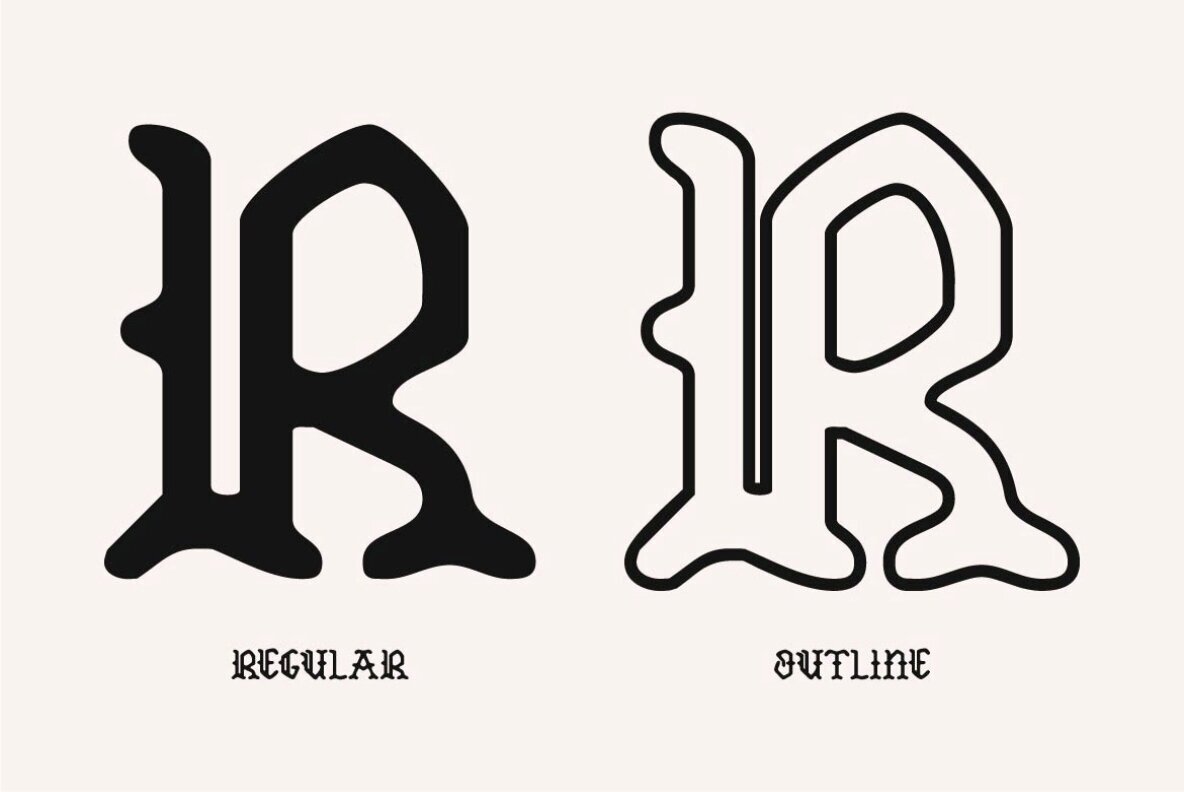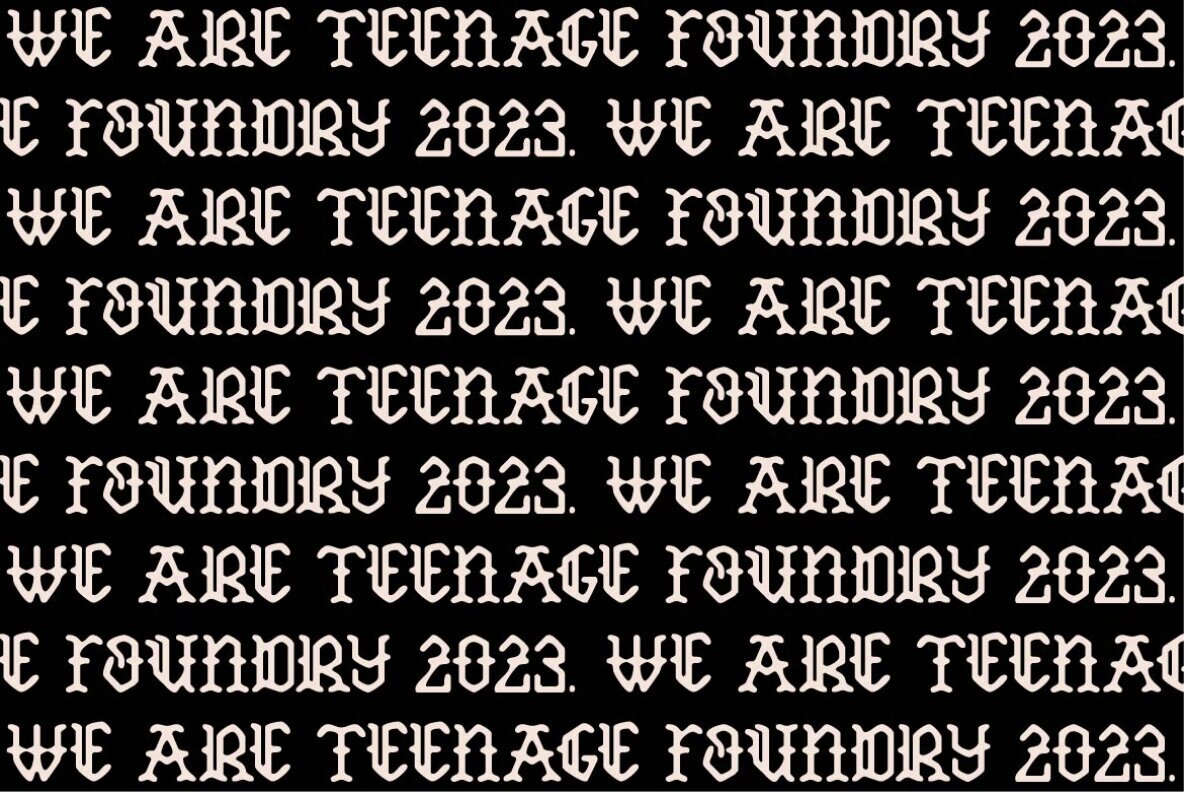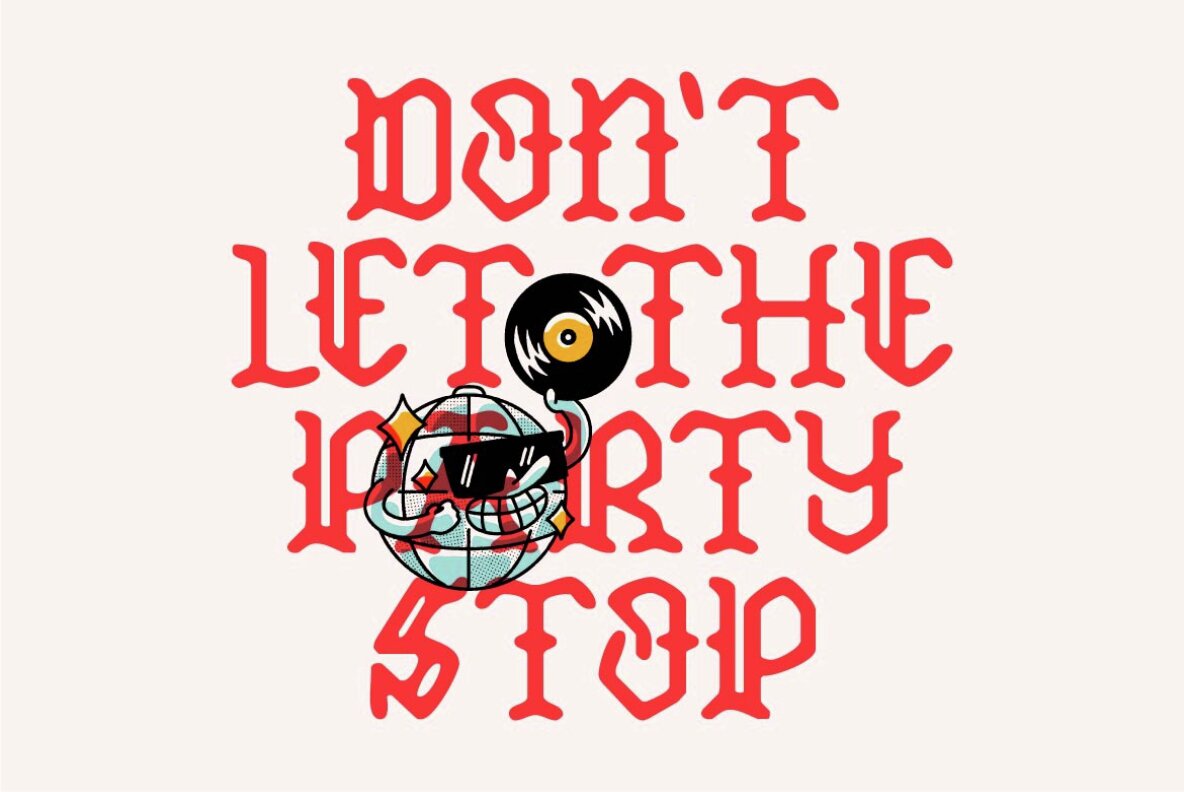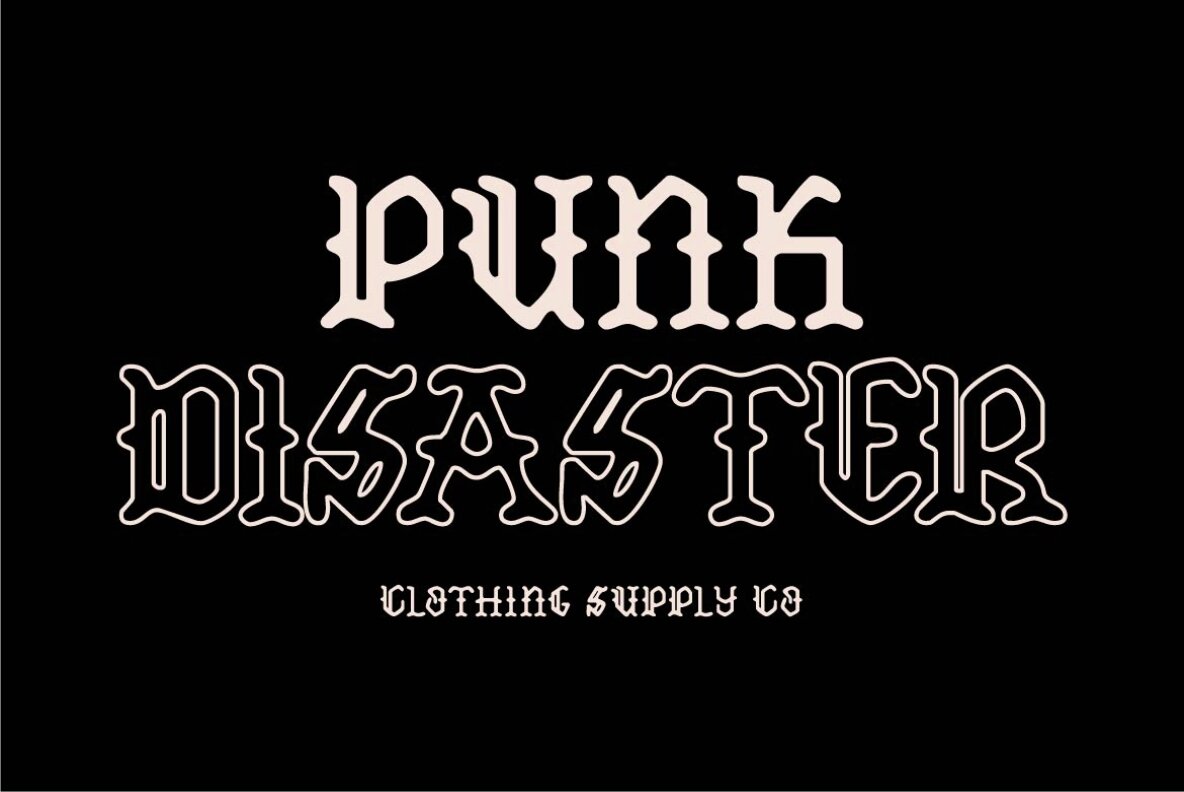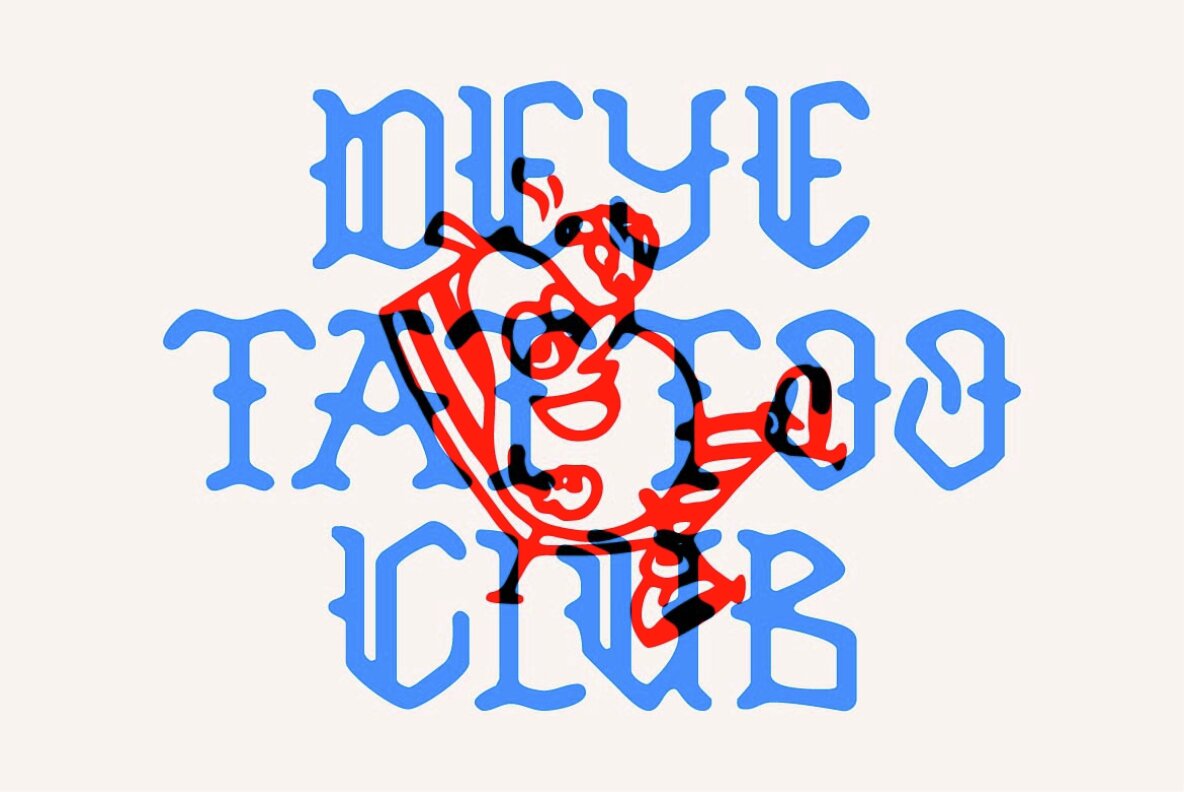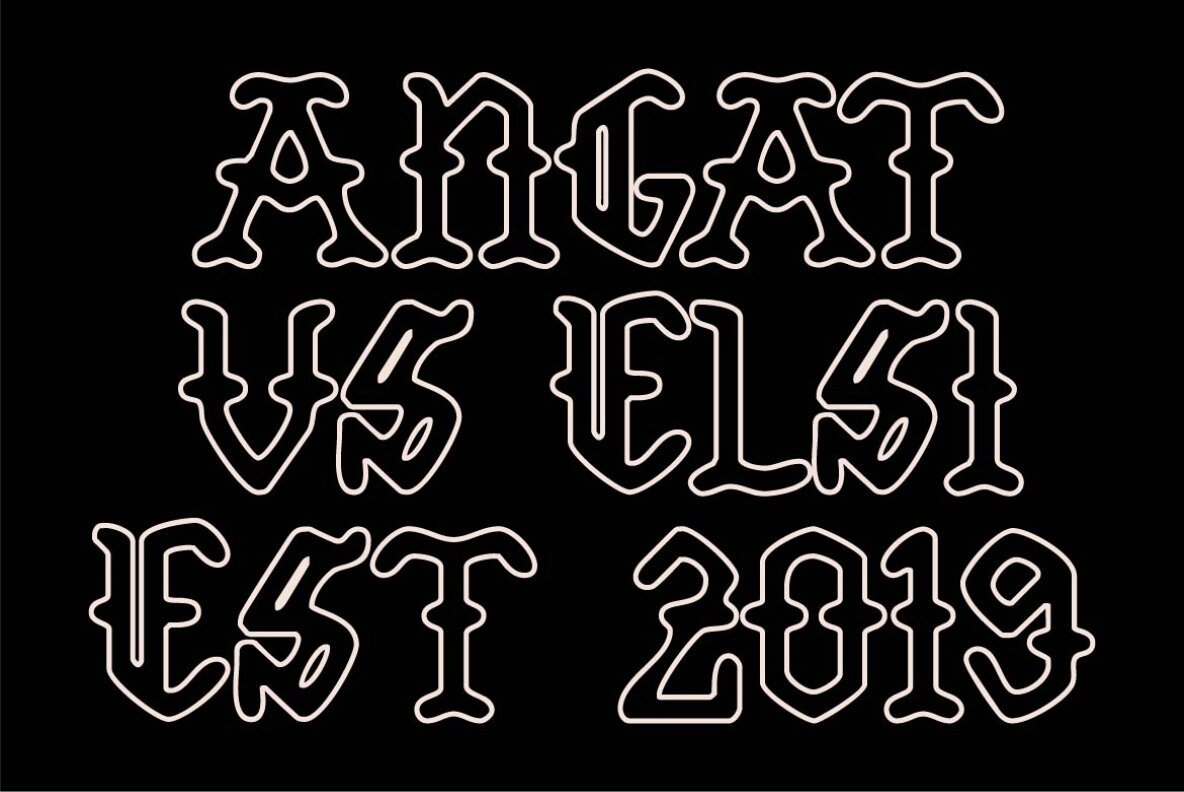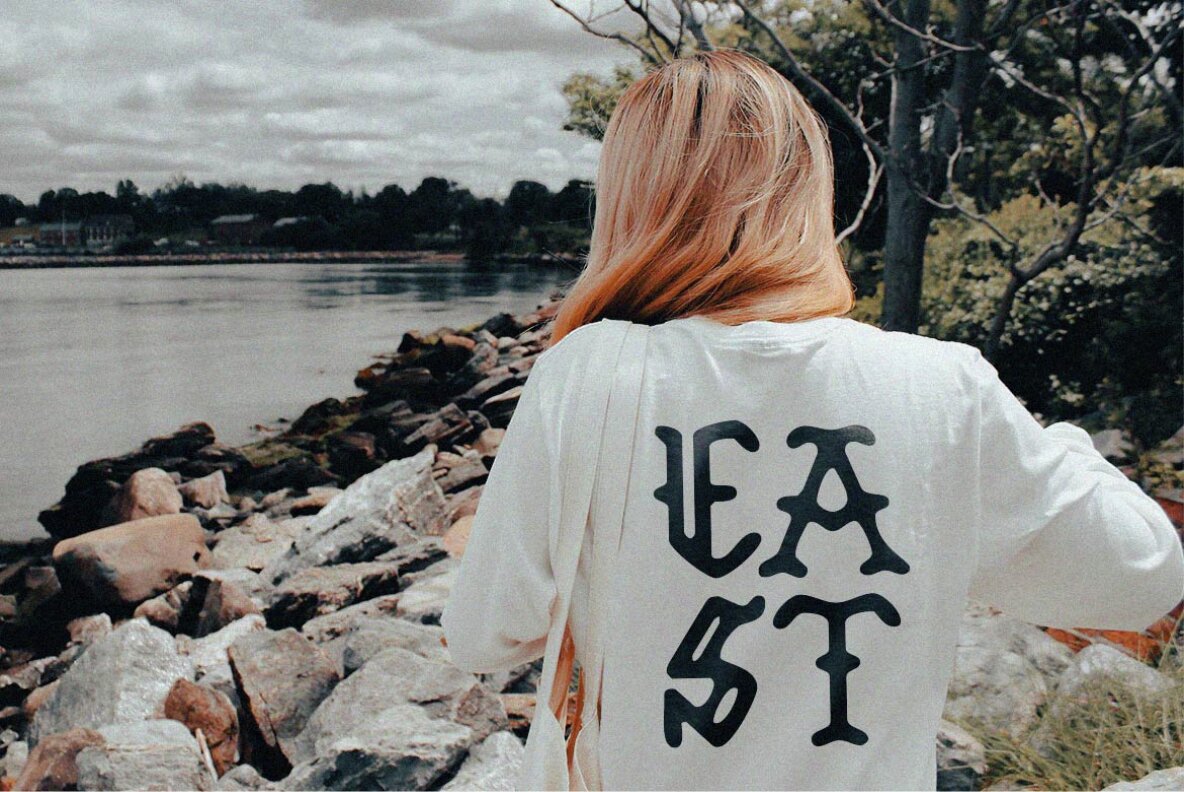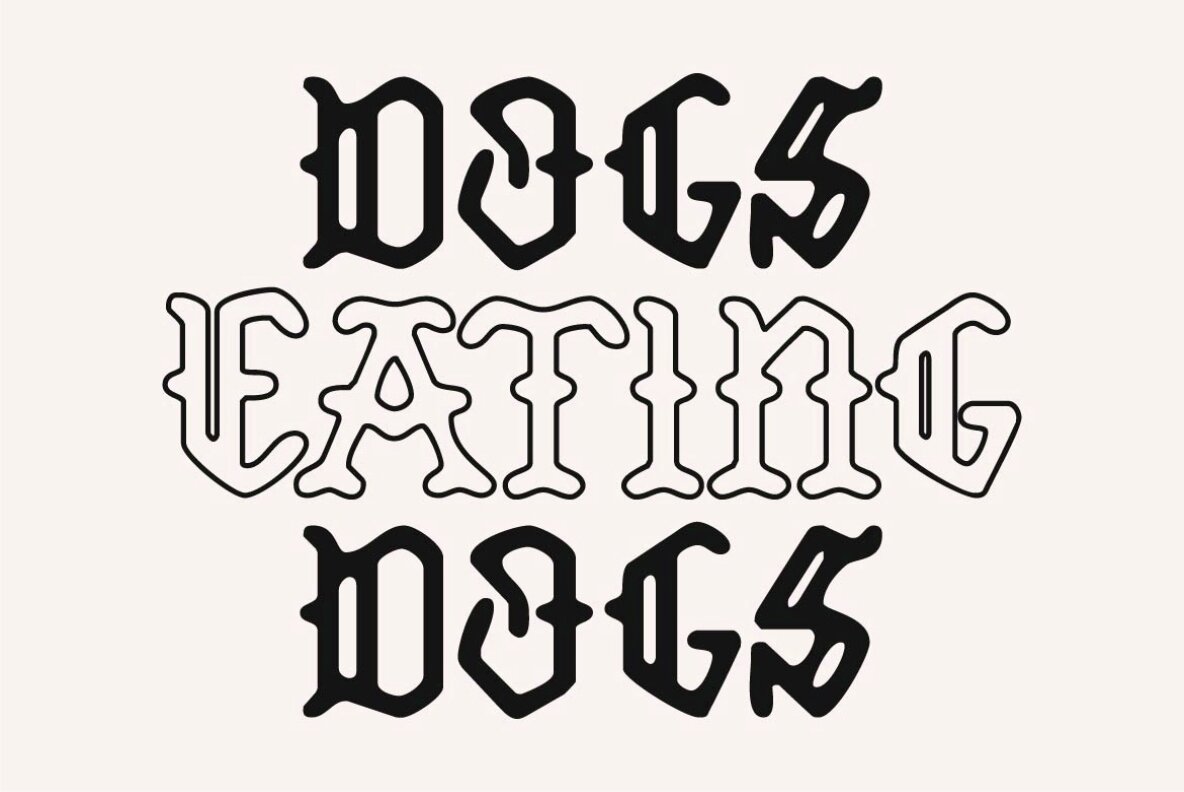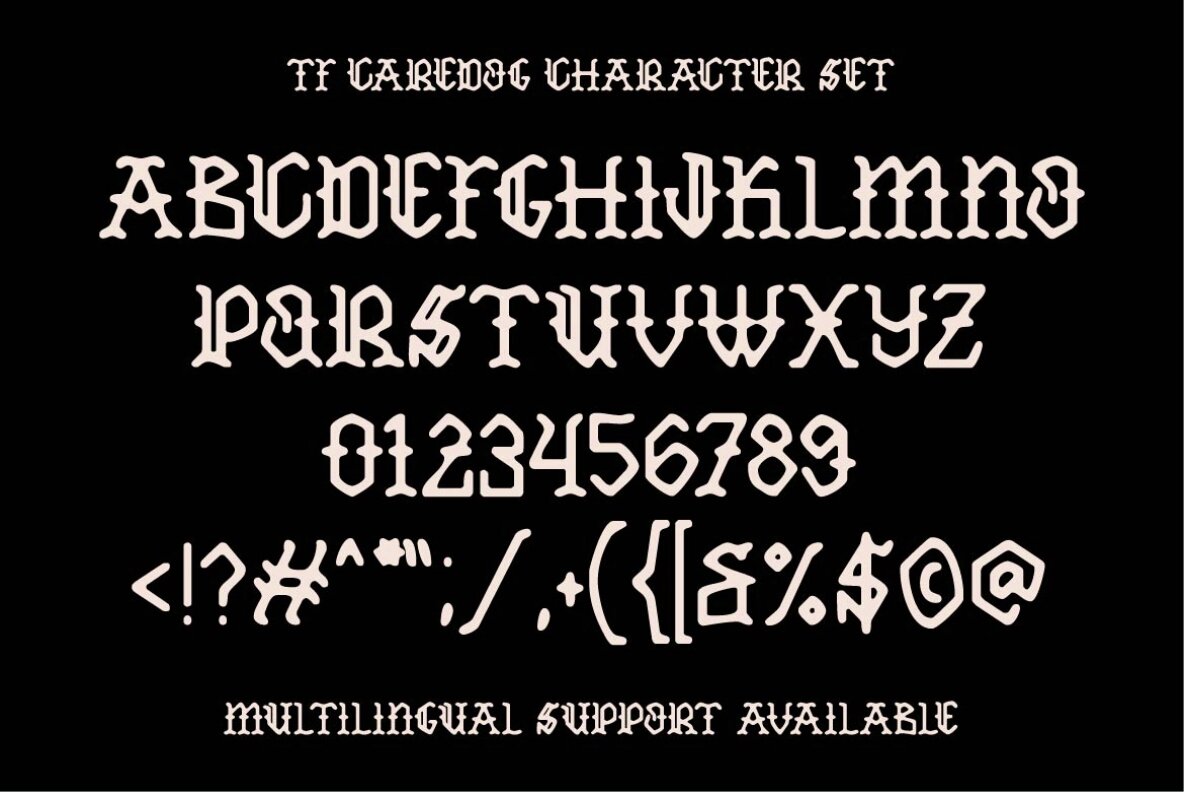
TF Caredog Font
TF Caredog – a blackletter font that’s powerful, and full of character! This font is perfect for anyone looking to make a statement with their designs and add a touch of fun to their projects. Fonts come in two styles – regular and outline – giving you the flexibility to choose the look that best suits your needs. Our blackletter fonts are designed with meticulous attention to detail, ensuring each letter is perfectly balanced and easy to read. The strong and bold character of the font will make your message impossible to ignore, while the fun and playful style will add an extra layer of creativity to your design.
Teenage Foundry brings playful irreverence and bold character to contemporary type design. Known for high-impact display fonts, their work often leans into retro, pop, and offbeat aesthetics—ideal for projects that demand standout personality. From groovy curves to heavy geometric forms, their catalog spans a...